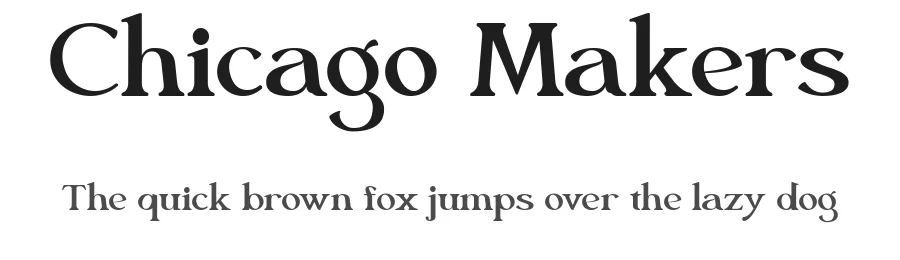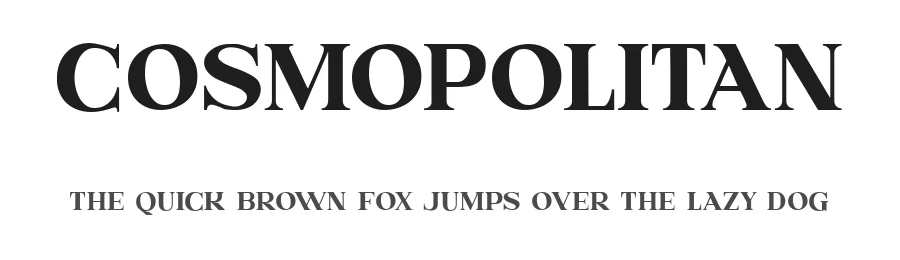
About La Qatrie Font
La Qatrie Specifications
| Font Family | LA QATRIE |
| Glyph Count | 233 glyphs |
| Designer | Putu Dody Permana |
La Qatrie supports 217 languages.
La Qatrie Font is a versatile serif font that works for both headings and body text. Pair it with a contrasting sans-serif or slab serif font to add visual interest and a clear distinction between titles and body copy.